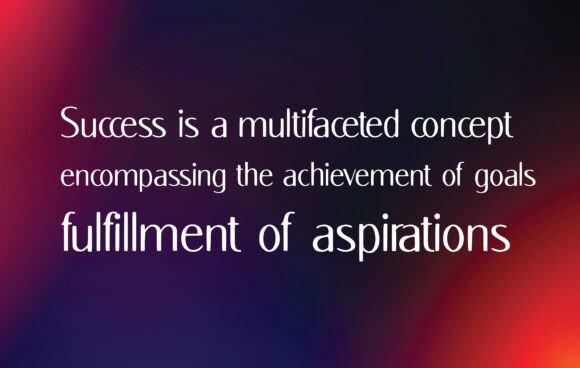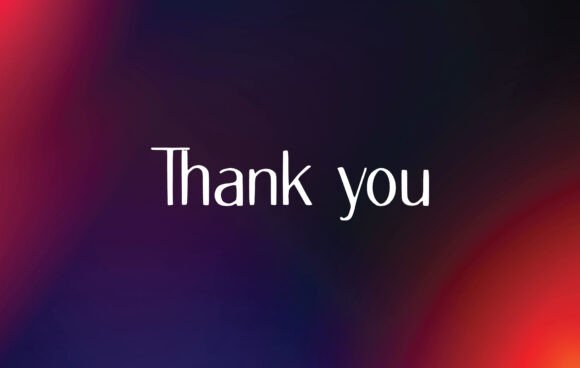
The Bromeliad Font: A Creative Powerhouse for Designers
I’ll never forget the design project that led me to discover the Bromeliad font. I was working on a branding campaign for a new boutique hotel, and I was struggling to find the perfect font to capture the essence of their tropical getaway. That’s when I stumbled upon Bromeliad, a lovely and beautiful handwritten font that instantly resonated with the hotel’s laid-back, yet sophisticated vibe.
As a designer, I fell in love with Bromeliad for several reasons:
• ✨ Unique Character: Bromeliad’s handwritten style has a distinct personality that sets it apart from more traditional fonts.
• ✅ Versatility: This font is incredibly versatile, making it perfect for a wide range of design projects, from logos and branding to quotes and social media graphics.
• 💫 Legibility: Despite its creative, handwritten feel, Bromeliad remains surprisingly legible, even at smaller font sizes.
Of course, no font is perfect, and Bromeliad does have a few quirks:
• 🤔 Limited Formality: Bromeliad’s casual, handwritten style might not be the best fit for super formal or corporate designs.
• ⚠️ Glyph Limitations: While Bromeliad has a range of OpenType features and glyphs, it might not have every special character or symbol you need.
The Story Behind Bromeliad
Bromeliad was designed by a talented type designer who drew inspiration from the tropical flowers of the bromeliad family. With its unique, handwritten style and extensive OpenType features, Bromeliad has become a favorite among designers and crafters.
Font Name Bromeliad Font
Author moonlight craft
What makes Bromeliad a great choice for logos and branding? Bromeliad’s unique, handwritten style and versatility make it an excellent choice for creating eye-catching logos and branding materials.
Does Bromeliad support OpenType features? Yes, Bromeliad has a range of OpenType features, including stylistic alternates, swashes, and glyphs.